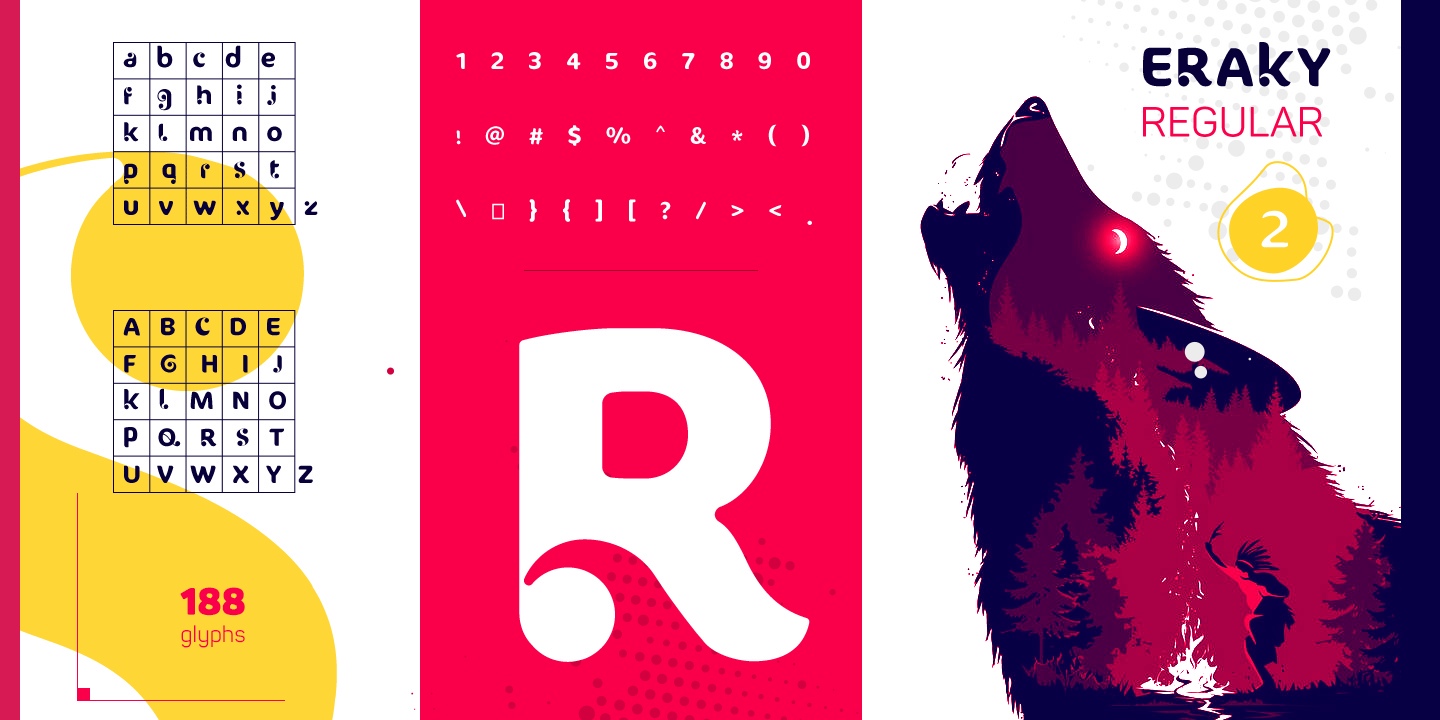
Eraky Font
Eraky Font is perfect for Middle Eastern cultural centers, Iraqi heritage exhibitions, Arabic calligraphy workshops, Mesopotamian archaeology museums, traditional Iraqi restaurant branding, Islamic art gallery displays, ancient civilization study materials, cultural bridge-building initiatives, international diplomatic venues, and authentic Middle Eastern hospitality experiences. This distinguished typeface brings Middle Eastern heritage and cultural sophistication to any culturally-focused design project.
Eraky Font is exciting because it embodies the rich cultural heritage and ancient wisdom of Mesopotamian civilization, featuring elegant letterforms that evoke the sophisticated artistry and intellectual legacy that flourished in the cradle of civilization. Its cultural character instantly conveys historical depth, academic authority, and the profound contributions that Middle Eastern cultures have made to human knowledge, art, and civilization.
Eraky Font family includes Light, Regular, Medium, and Bold weights with Middle Eastern alternates, cultural flourishes, heritage ornamental elements, and traditional symbols that enhance the archaeological aesthetic, providing cultural designers with authentic tools for creating typography that honors Middle Eastern heritage and celebrates the enduring influence of ancient civilizations.
Cultural heritage designers appreciate Eraky Font for its exceptional ability to convey historical gravitas and cultural authenticity through carefully crafted letterforms. The font's heritage character and Middle Eastern details create immediate associations with ancient manuscripts, archaeological discoveries, and the intellectual achievements that established the Middle East as a center of learning, art, and cultural innovation throughout human history.
The design inspiration behind Eraky Font draws from ancient Middle Eastern scripts, archaeological inscriptions, and the rich calligraphic traditions that have preserved cultural knowledge across millennia, making it particularly effective for museums, cultural institutions, and educational organizations seeking to establish authentic connections with Middle Eastern heritage and ancient civilization studies. Academic teams working on cultural preservation find this font essential.
Whether used for archaeological museums, Middle Eastern cultural festivals, or academic research presentations, Eraky Font delivers the perfect synthesis of cultural authenticity and scholarly authority. Its heritage appeal and historical significance make it an indispensable choice for institutions that preserve cultural heritage, promote cross-cultural understanding, and celebrate the enduring contributions of Middle Eastern civilization to human knowledge and artistic achievement.